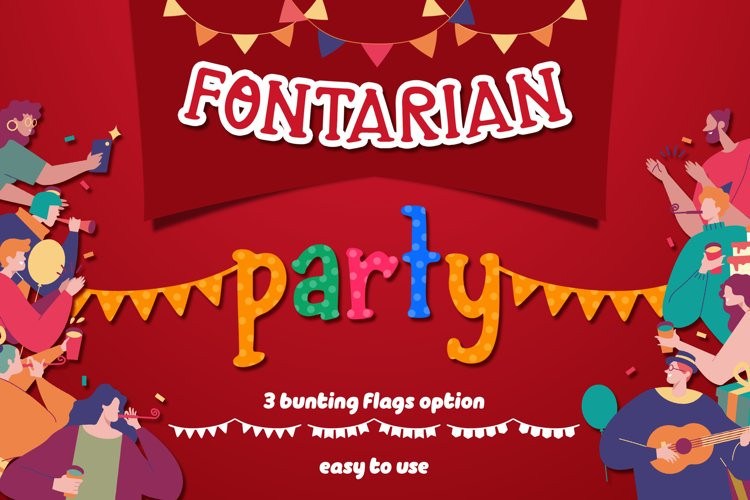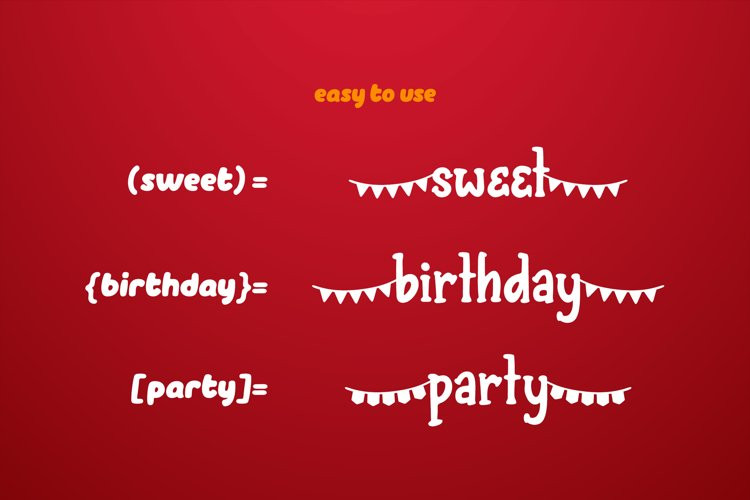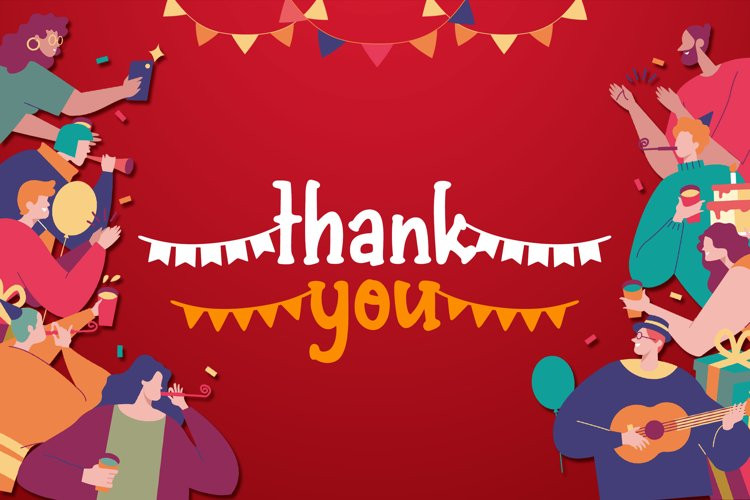
Fontarian Party Font
Fontarian Party FontFontarian Party is a sweet unique font with additional decorative party flags. It has 3 option of bunting flags. You can use access it easily.
This unique font also support multi language character. Make your party design and craft more cute with this font.